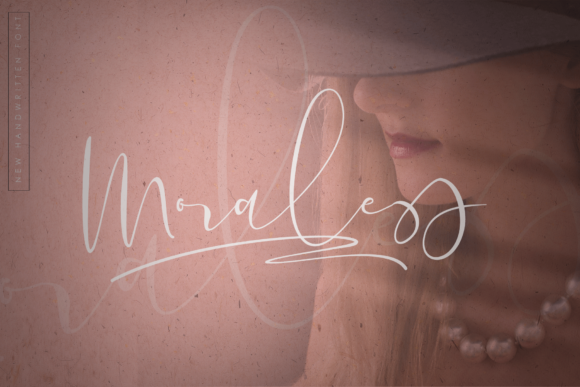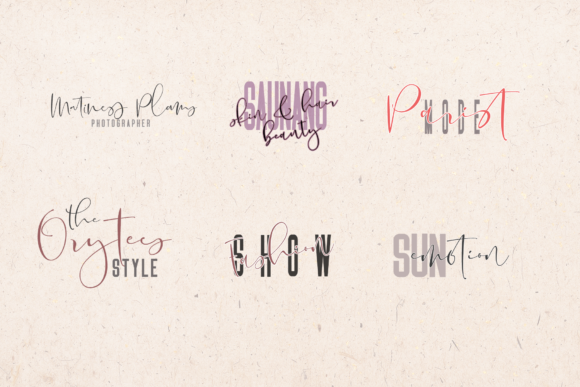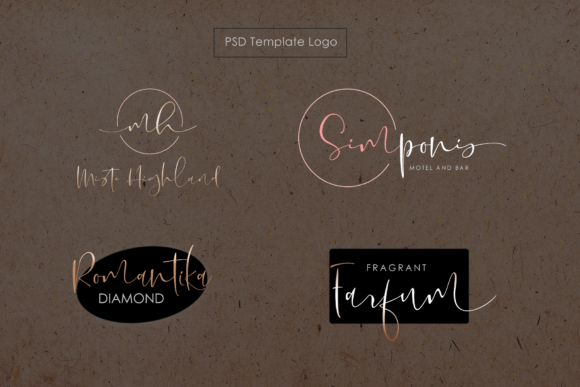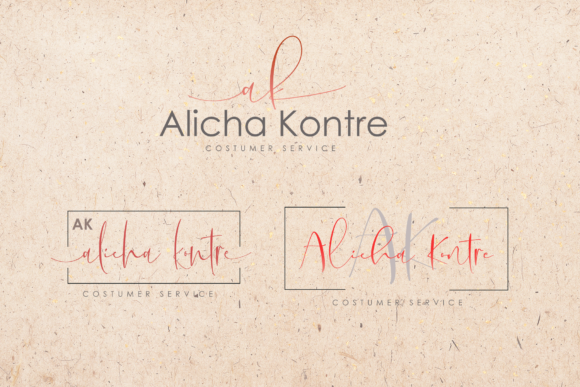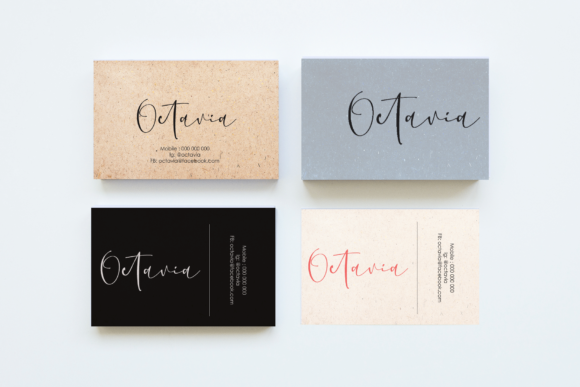
Moraless & Solution Font
About Moraless & Solution Font
Moralless & Solution are two unique typefaces, combined in one duo font. The Moralless is a handwritten script font with natural characteristic, and the Solution is a striking font, which will make any design stand out.